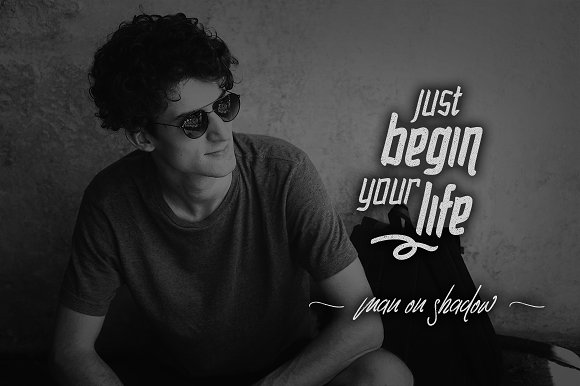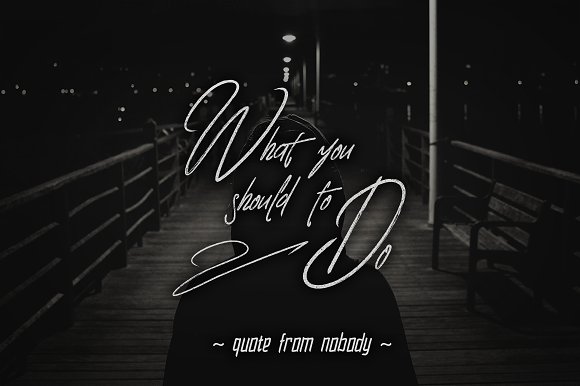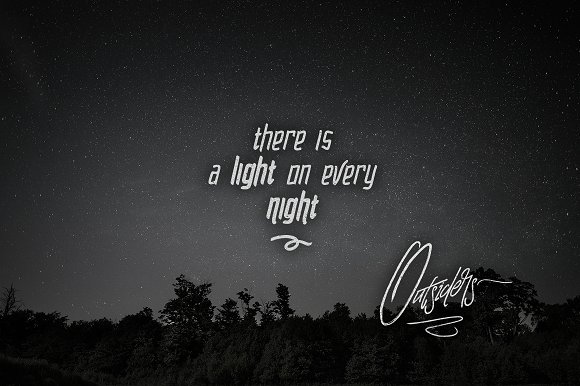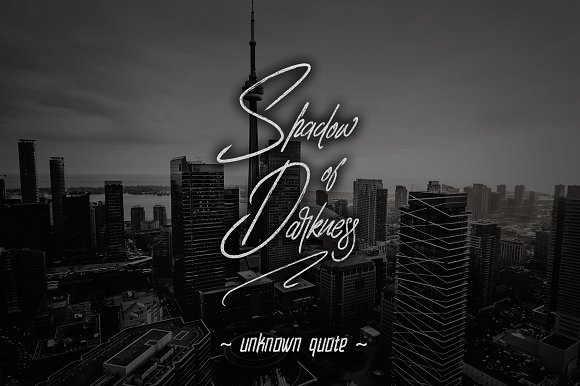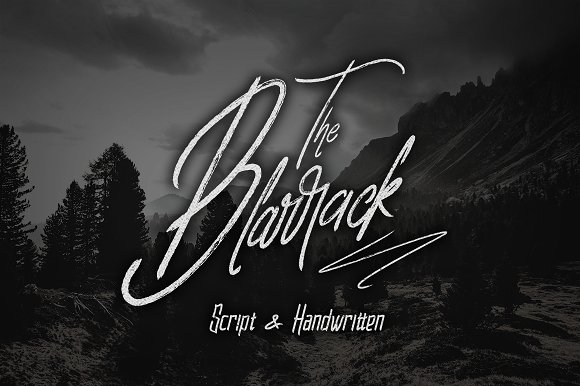
Blarrack Font Duo
Blarrack is a script and handwritten font duo. It is suitable for any design needs, branding, cover title, t-shirts, posters and more.
The Blarrack font duo includes multi-lingual and currency support, numerals, and punctuations. It comes comes with stylistic alternates, ss01, ss02.